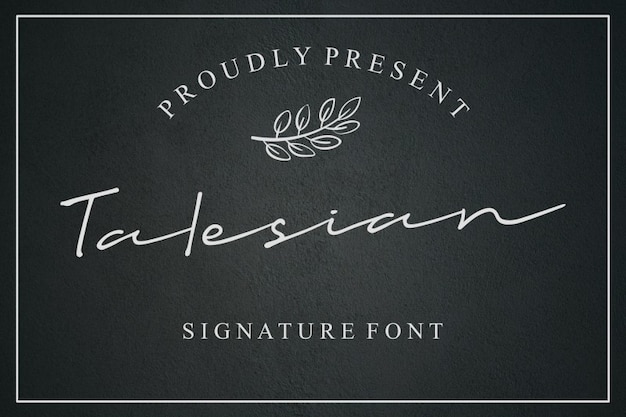
Talesian Font
ViactionType Studio
Talesian is a captivating font reminiscent of delicate calligraphy, evoking the charm of handwritten tales. With its graceful strokes and intricate details, each character tells a story of its own. Perfect for adding a touch of elegance to invitations, branding, or any project needing a sophisticated watermark effect, Talesian adds a timeless and artisanal quality to your text.